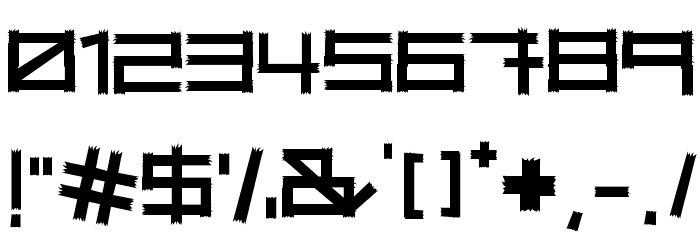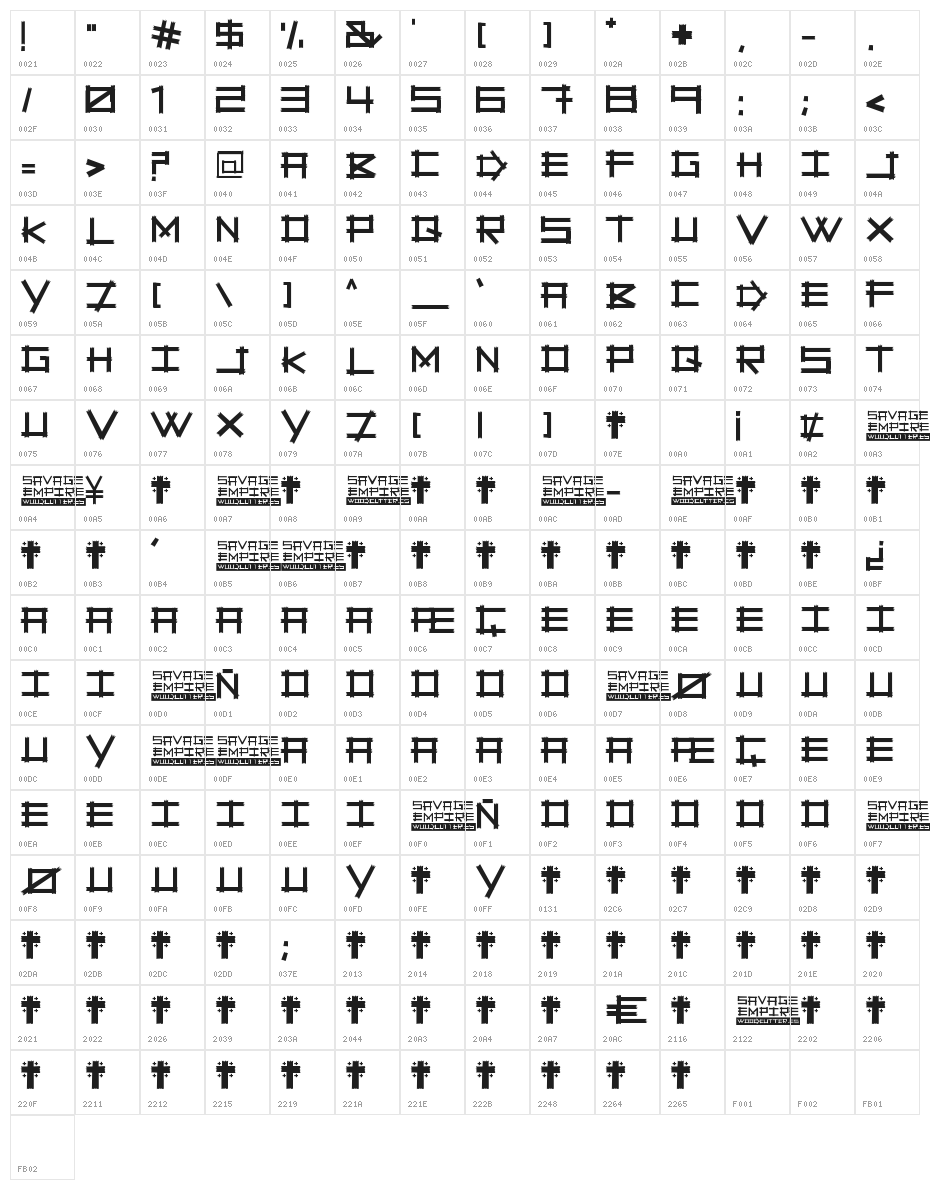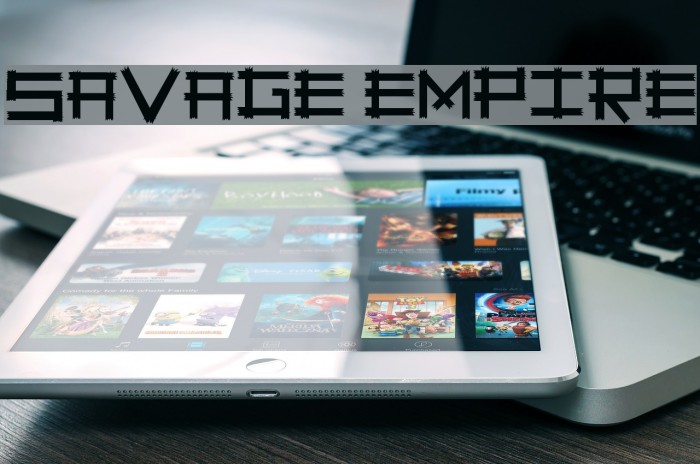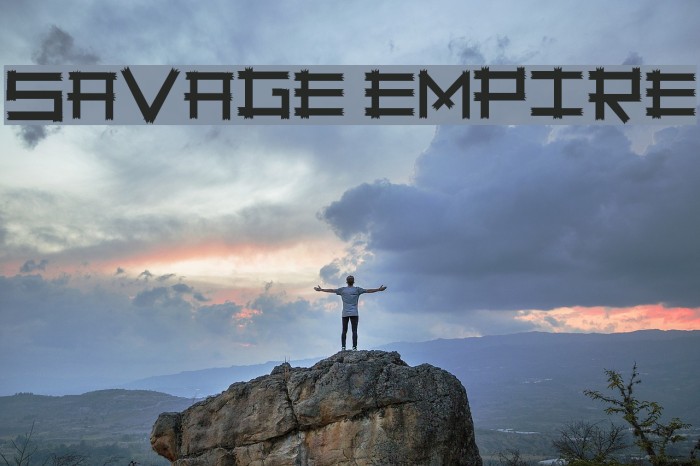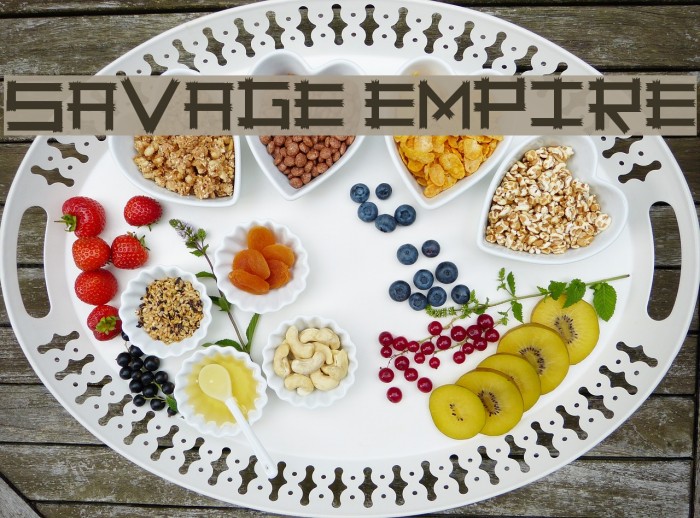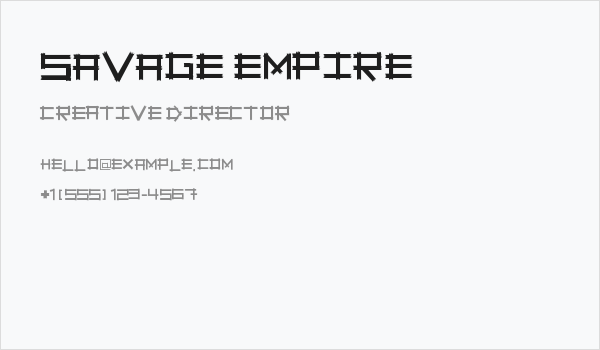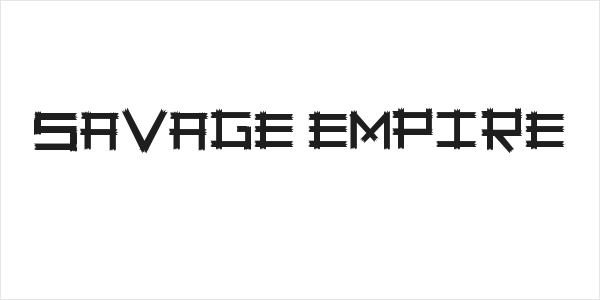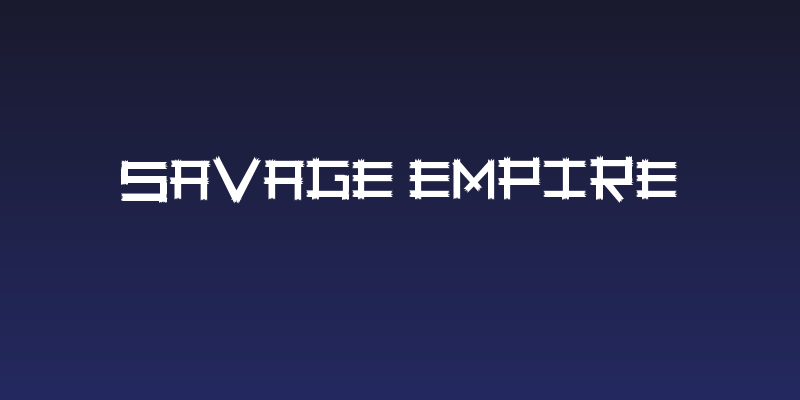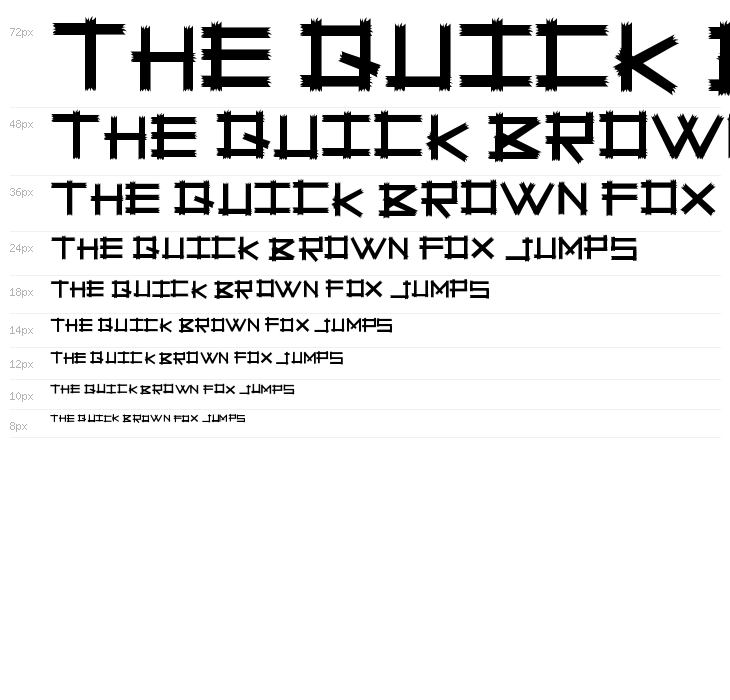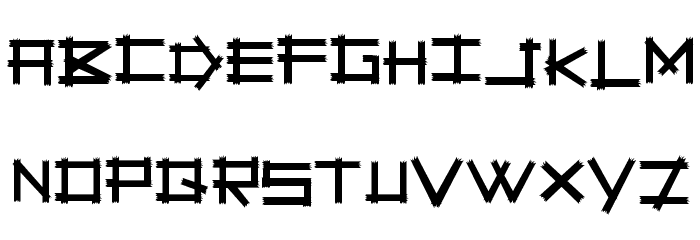
Savage Empire Font
Savage Empire Description
This font features a bold and aggressive design with sharp, jagged edges that give it a rugged and dynamic appearance. The characters are constructed with a consistent thickness, creating a uniform look across both uppercase and lowercase letters. The numbers and special characters maintain the same edgy style, making the font suitable for projects that require a strong visual impact. The unique design elements suggest a theme of power and intensity, making it ideal for attention-grabbing headlines or branding that aims to convey strength and boldness.
| Overall Style | Modern, Aggressive |
| Proposed Projects | Ideal for use in video game titles, movie posters, extreme sports branding, and any project requiring a bold, impactful typeface. |